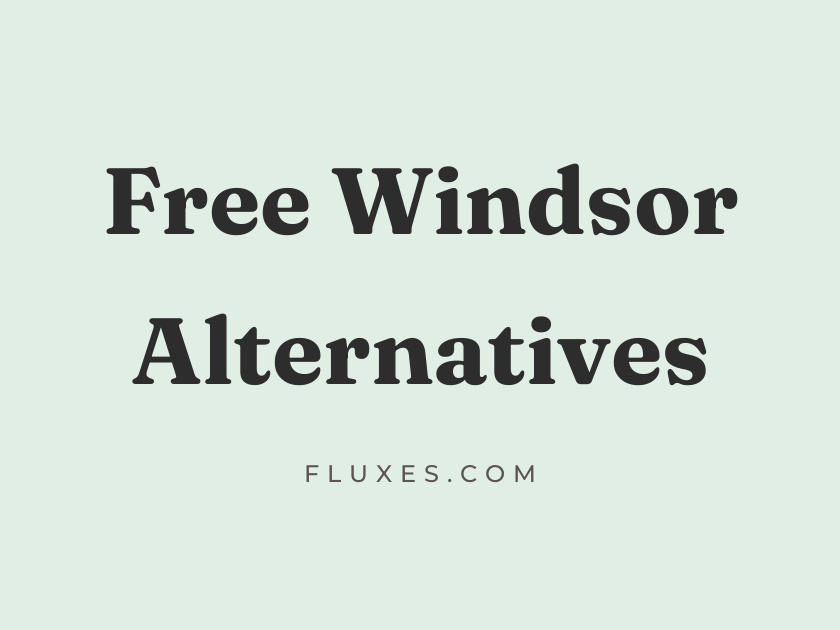
15 Best Free Fonts Alternatives to Windsor
Windsor has long been the go-to serif for anyone chasing that warm, old-world charm: the rounded terminals, the slightly irregular curves, the sense that a letterpress printer somewhere pulled it from a drawer of vintage type. It shows up on cookbook covers, craft beer labels, storybook branding, and any project that wants to feel handmade rather than manufactured. Because Windsor itself is not free, designers searching for free Windsor font alternatives on Google Fonts need serifs that share its warmth, its slightly art nouveau curves, and its comfortable, unpretentious presence on the page.
The fonts gathered here lean into that same territory: rounded vintage serifs, humanist old-style faces, and a few display options with the chunky, hand-set character Windsor is known for. Some are better suited to headlines, others to long-form reading, but all of them carry a bit of that nostalgic, storybook warmth designers reach for when Windsor is not an option.
1. Fraunces
Old recipes, worn labels, a familiar warmth
Fraunces was built for exactly this kind of nostalgia. Its soft, buttery curves and old-style proportions give it a printed-decades-ago quality, but the variable font includes optical sizes and an italic that swings from restrained to genuinely wonky, so it scales from cookbook headline to body copy without losing personality.
2. Yeseva One
Handcrafted since the golden age of print
Yeseva One is a display serif with heavy, confident strokes and rounded joints that recall vintage signage and hand-painted shop fronts. It works best big, on a poster or logotype, where its curves and thick-thin contrast have room to breathe; at small sizes it turns dense and loses the charm that makes it worth using.
3. Vidaloka
A quiet elegance from another era
Vidaloka
There is something cinematic about Vidaloka, a serif with tall proportions and gently flared serifs that feel lifted from a mid-century film title card. It reads as refined without tipping into stiffness, which makes it a natural fit for editorial mastheads or packaging that wants understated vintage polish rather than loud nostalgia.
4. Abril Fatface
Bold headlines with vintage magazine flair
Abril Fatface brings the fat-face drama of nineteenth-century posters into a Google Fonts file, all extreme contrast and rounded bowls. It is a headline font through and through; pair it with a plainer text face for anything longer than a few words, since its weight overwhelms body copy fast.
5. Old Standard TT
Set in the tradition of old scholarly type
Old Standard TT was modeled on classic nineteenth-century academic typefaces, and it carries that scholarly, slightly formal air into modern layouts. It suits book interiors, footnotes, and any project that wants the gravity of an old printed volume rather than the softness of a display face.
6. Cardo
Timeless serifs for stories worth telling
Cardo was designed with classical and biblical scholarship in mind, so its letterforms carry real historical depth, generous x-height, and calm, even texture on the page. It performs well in long-form reading, which makes it a sound choice for the body text of a project whose headlines borrow Windsor’s vintage swagger.
7. Vollkorn
A warm serif for everyday storytelling
Vollkorn was built specifically for comfortable reading, and it shows in the gentle curves and unhurried rhythm of its lowercase letters. It is not flashy, which is precisely its value as a body companion to a bolder, more decorative display serif at the top of a page.
8. Bitter
Sturdy letterforms with a vintage backbone
Originally a slab serif for screens, Bitter has since grown into a flexible family with a sturdy, workmanlike character that still hints at old print. It handles both headlines and paragraphs respectably, making it a practical, if less decorative, alternative when a project needs vintage warmth without much fuss.
9. Alegreya
Literary elegance for chapters and covers
Alegreya was originally commissioned for literary text, and its calligraphic rhythm and dynamic curves give it a lively, humanist feel rarely found in workhorse serifs. The italic in particular has real character, sloping and springing in a way that suits book covers, invitations, or any layout wanting a literary, old-soul mood.
10. Rozha One
Decorative curves for vintage display type
Rozha One is unapologetically decorative, with thick, rounded serifs and a slightly exotic curve to its bowls that recalls hand-carved vintage lettering. Reserve it for short headlines or logotypes; the density of its strokes makes it unreadable at body-copy sizes.
11. Trocchi
Understated charm from classic book design
Trocchi
Trocchi keeps a low profile, an old-style serif with modest contrast and a restrained, bookish demeanor. It rarely draws attention to itself, which is exactly why it works so well as a text companion under a louder, more theatrical vintage display face.
Windsor’s appeal has always been its warmth, a sense that the type was drawn by hand rather than pulled from a strict grid. The fonts above offer that same nostalgic comfort in a range of weights and moods, giving any project rooted in vintage charm plenty of free, well-crafted alternatives to build on.